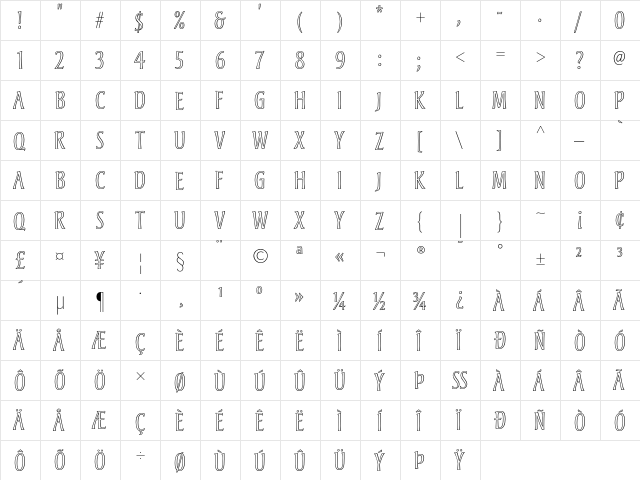
Andreas Regular
Design Context for Andreas Typeface
Andreas is a composed and adaptable typeface that performs quietly and consistently across a wide range of design contexts.